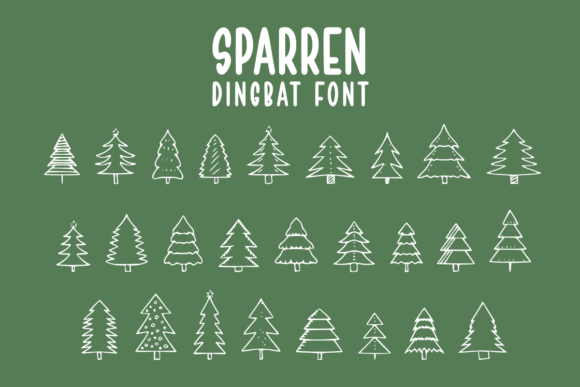
About Sparren Font
Sparren is a festive dingbats font.This font is suitable for all your crafty projects such as Christmas decorations, clipart, greeting cards, printing, invitation cards, or anything that needs to be infused with the holiday spirit.